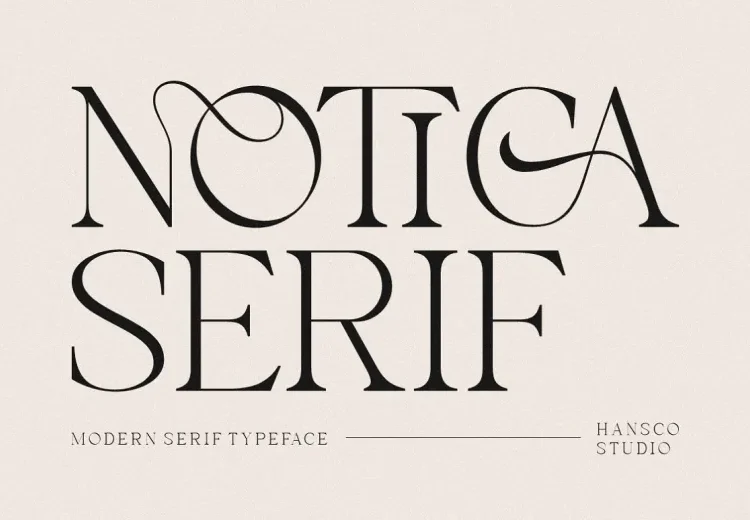
Notica Font
Notica is a stylish display serif font distinguished by its original and elegant design. This versatile typeface combines contemporary luxury with a romantic flair, making it an ideal choice for a wide range of projects. Whether you’re working on logo designs, posters, crafts, books, branding, invitations, packaging, labels, or wedding materials, Notica Serif Font adds a timeless touch to any aesthetic.
Featuring both lowercase and uppercase letters, as well as symbols, punctuation, numerals, ligatures, and stylistic alternatives, Notica offers extensive design flexibility. Its PUA encoding ensures that all swashes and glyphs are easily accessible, allowing users to incorporate these features seamlessly into their projects. Windows users can utilize Character Map, while Mac users can access these characters through Font Book.